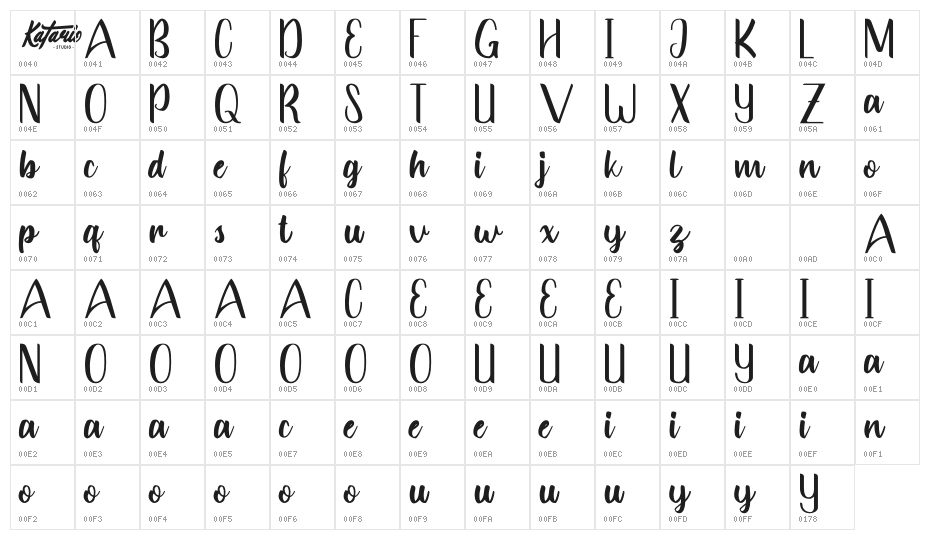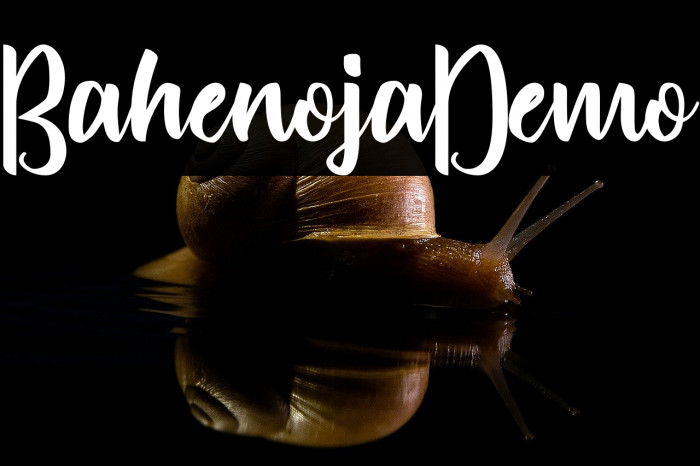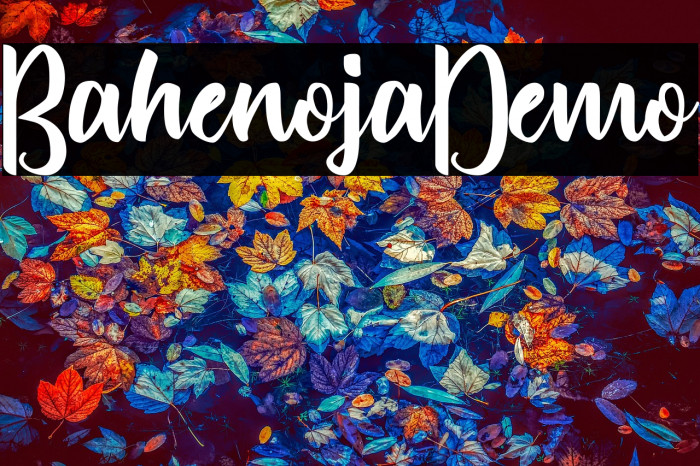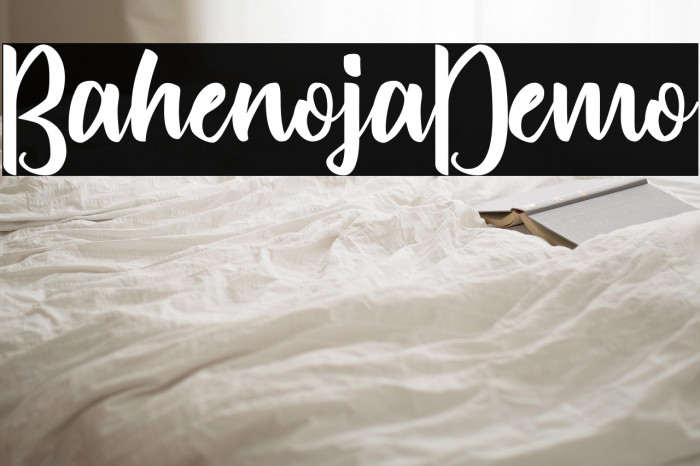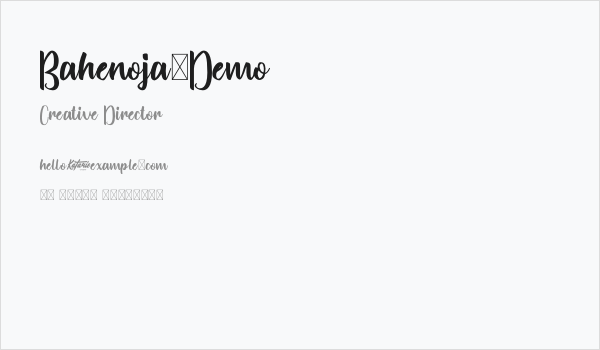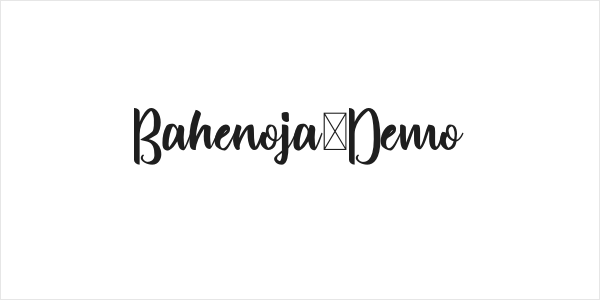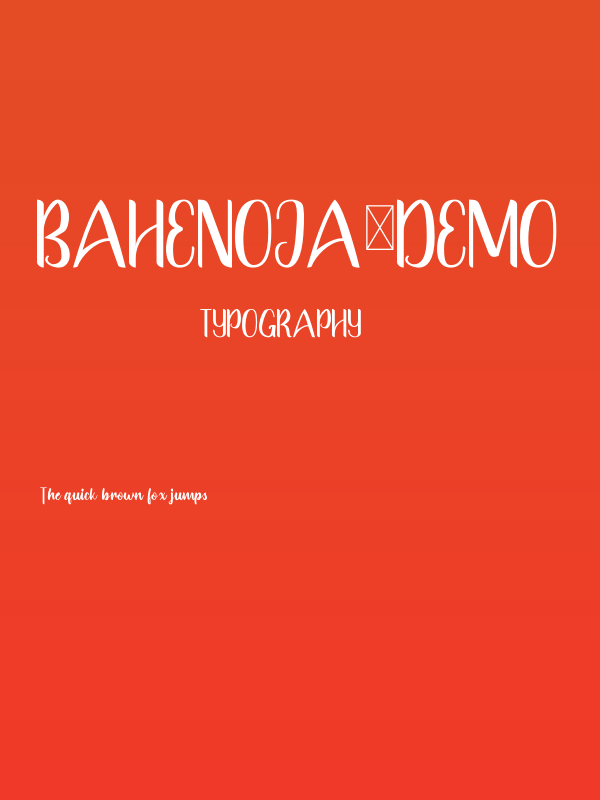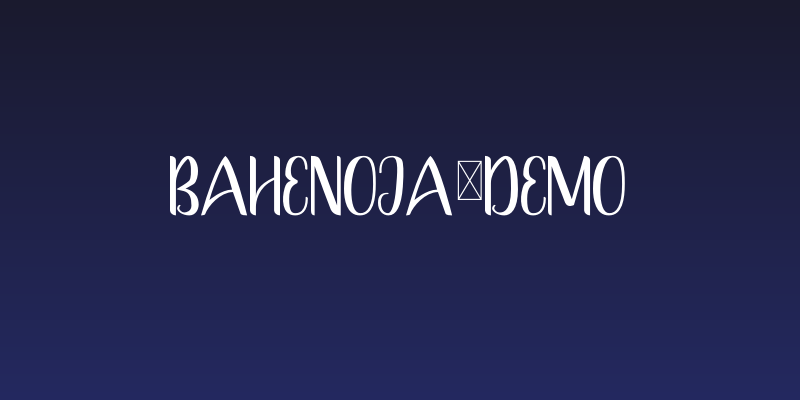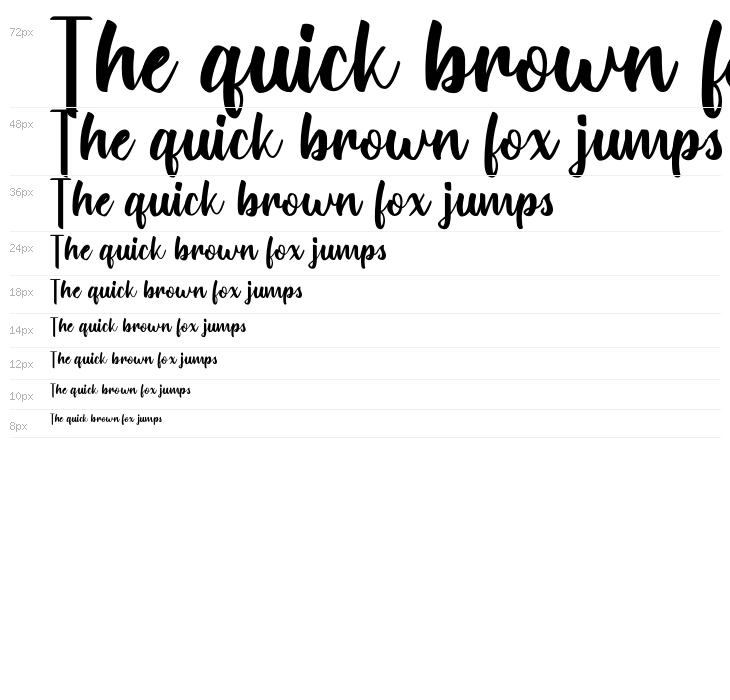
Bahenoja-Demo Font
Bahenoja-Demo Description
This font features a unique blend of modern and decorative styles, with uppercase letters exhibiting a tall, narrow form and slight curvature that adds a touch of elegance. The lowercase letters are more fluid and script-like, providing a dynamic contrast to the uppercase. The overall design is playful yet sophisticated, making it suitable for creative projects. The characters are well-spaced, ensuring readability while maintaining an artistic flair. The font's versatility allows it to be used in various contexts, from branding to invitations, where a touch of personality is desired.
Overall StyleModern, Decorative
Use CaseLogos, Invitations, Creative projects
Proposed ProjectsIdeal for branding, invitations, and creative projects requiring a stylish and personal touch.